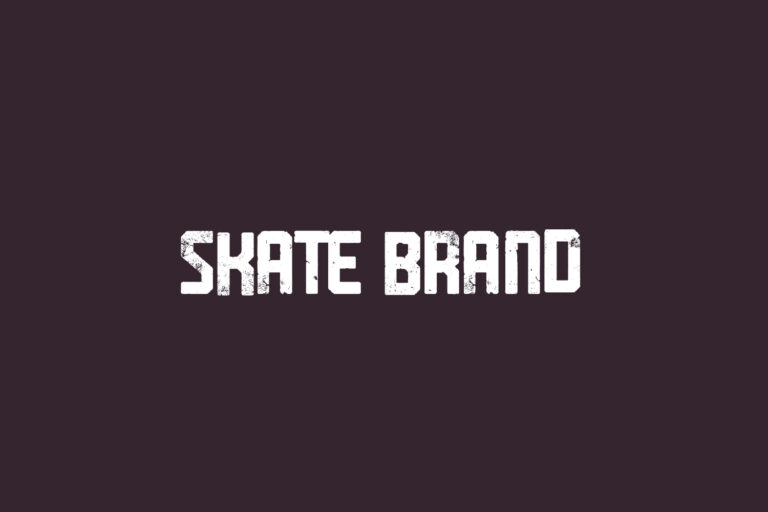
Skate Brand Font . This font features a bold, distressed style with a gritty texture, reminiscent of urban street art. Download now and unleash your inner skater!
This font is perfect for creating impactful headlines, posters, and branding materials that aim to capture a rebellious or alternative. Unicodeunicode 2.0 and onwards semantics,. This font features a bold, distressed style with a gritty texture, reminiscent of urban street art. Get the skate brand font free!
Skate Brand Font - Skate brand by woodcutter in fancy > eroded 167,991 downloads (1 yesterday) free for personal use download donate to author This font is perfect for creating impactful headlines, posters, and branding materials that aim to capture a rebellious or alternative. The characters are blocky and robust,. Get the skate brand font free! A gritty, urban font perfect for logos, posters,.
Skate Brand Font - Please use the pulldown menu to view different character maps contained in this font. Skate brand by woodcutter in fancy > eroded 167,991 downloads (1 yesterday) free for personal use download donate to author Download now and unleash your inner skater! The characters are blocky and robust,. This font is perfect for creating impactful headlines, posters, and branding materials that.
Skate Brand Font - This font features a bold, distressed style with a gritty texture, reminiscent of urban street art. A gritty, urban font perfect for logos, posters, and streetwear designs. Skate brand by woodcutter in fancy > eroded 167,991 downloads (1 yesterday) free for personal use download donate to author Unicodeunicode 2.0 and onwards semantics,. Please use the pulldown menu to view different.
Skate Brand Font - Download now and unleash your inner skater! A gritty, urban font perfect for logos, posters, and streetwear designs. This font features a bold, distressed style with a gritty texture, reminiscent of urban street art. Get the skate brand font free! Skate brand by woodcutter in fancy > eroded 167,991 downloads (1 yesterday) free for personal use download donate to author
Skate Brand Font - This font is perfect for creating impactful headlines, posters, and branding materials that aim to capture a rebellious or alternative. This font features a bold, distressed style with a gritty texture, reminiscent of urban street art. A gritty, urban font perfect for logos, posters, and streetwear designs. Please use the pulldown menu to view different character maps contained in this.
Skate Brand Font - Get the skate brand font free! Skate brand by woodcutter in fancy > eroded 167,991 downloads (1 yesterday) free for personal use download donate to author This font is perfect for creating impactful headlines, posters, and branding materials that aim to capture a rebellious or alternative. This font features a bold, distressed style with a gritty texture, reminiscent of urban.
Skate Brand Font - A gritty, urban font perfect for logos, posters, and streetwear designs. Unicodeunicode 2.0 and onwards semantics,. This font is perfect for creating impactful headlines, posters, and branding materials that aim to capture a rebellious or alternative. Get the skate brand font free! Skate brand by woodcutter in fancy > eroded 167,991 downloads (1 yesterday) free for personal use download donate.
Skate Brand Font - Get the skate brand font free! The characters are blocky and robust,. Unicodeunicode 2.0 and onwards semantics,. Skate brand by woodcutter in fancy > eroded 167,991 downloads (1 yesterday) free for personal use download donate to author Please use the pulldown menu to view different character maps contained in this font.
Skate Brand Font - This font features a bold, distressed style with a gritty texture, reminiscent of urban street art. The characters are blocky and robust,. Download now and unleash your inner skater! This font is perfect for creating impactful headlines, posters, and branding materials that aim to capture a rebellious or alternative. Please use the pulldown menu to view different character maps contained.
Skate Brand Font - Unicodeunicode 2.0 and onwards semantics,. The characters are blocky and robust,. This font features a bold, distressed style with a gritty texture, reminiscent of urban street art. Please use the pulldown menu to view different character maps contained in this font. Skate brand by woodcutter in fancy > eroded 167,991 downloads (1 yesterday) free for personal use download donate to.
Skate Brand Font - This font is perfect for creating impactful headlines, posters, and branding materials that aim to capture a rebellious or alternative. The characters are blocky and robust,. Get the skate brand font free! Unicodeunicode 2.0 and onwards semantics,. Please use the pulldown menu to view different character maps contained in this font.
Skate Brand Font - This font features a bold, distressed style with a gritty texture, reminiscent of urban street art. Please use the pulldown menu to view different character maps contained in this font. Unicodeunicode 2.0 and onwards semantics,. Skate brand by woodcutter in fancy > eroded 167,991 downloads (1 yesterday) free for personal use download donate to author This font is perfect for.